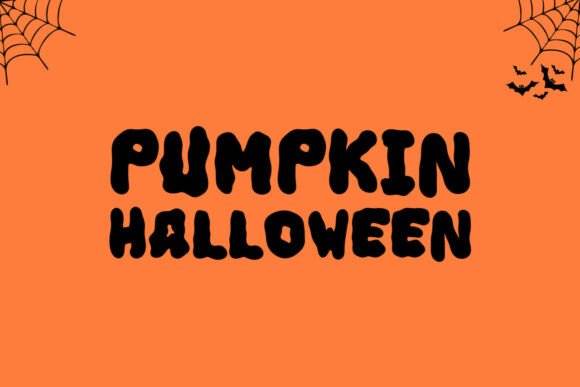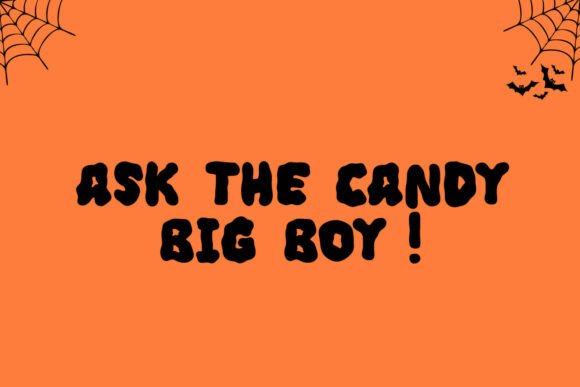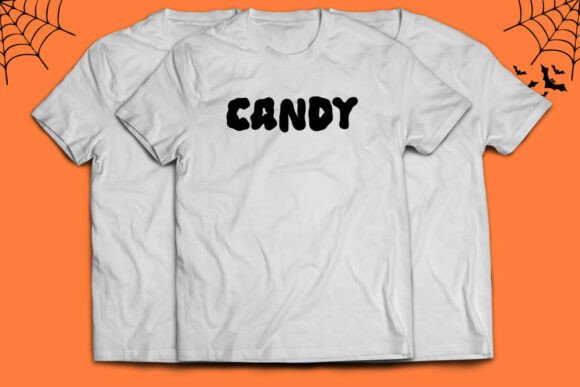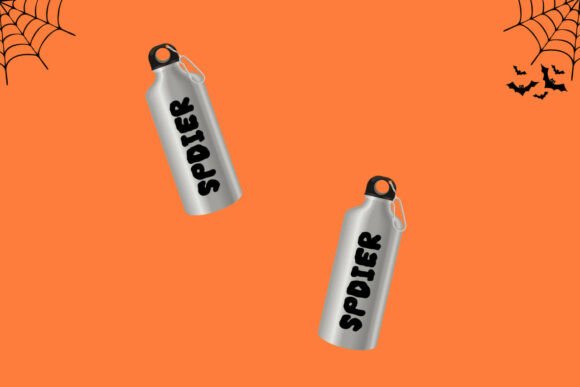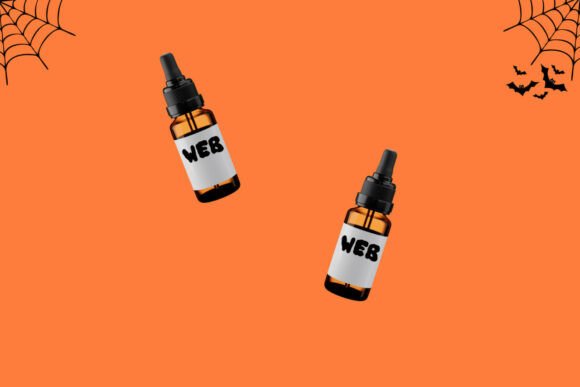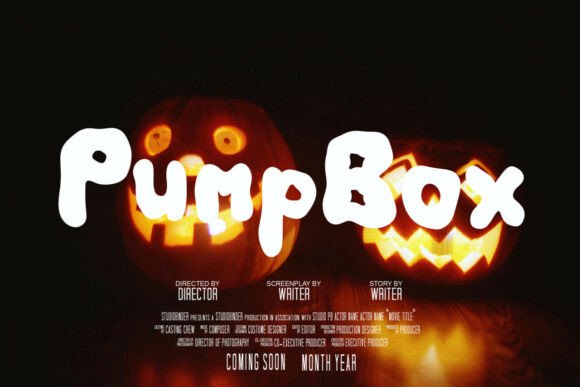
Introduction to Plumpkin Font
As the leaves begin to change and the air grows crisp, many of us start brainstorming creative ways to capture the essence of autumn. Whether you’re designing party invites, stickers, or mugs for a seasonal market, you need a font that embodies the cozy, playful spirit of the season. That’s where Plumpkin Font comes in – a chunky, cheerful display font that’s sure to put a smile on your customers’ faces.
With its bold strokes and rounded shapes, Plumpkin Font is the perfect design resource for any creative project. Its high-quality design makes it ideal for free downloads, and its transparent background ensures that your words will shine on any background. Whether you’re a seasoned designer or just starting out, Plumpkin Font is a valuable addition to your toolkit.
So why settle for a generic font when you can make a statement with Plumpkin Font? Let’s dive in and explore the many ways you can use this delightful font to bring your autumn-themed designs to life.
Key Features of Plumpkin Font
- High-quality font with a transparent background, ideal for creative projects that require a unique and eye-catching design resource.
- Includes a range of characters, including uppercase and lowercase letters, numbers, and punctuation marks, making it a versatile design resource.
- Designed with a modern and playful aesthetic, the Plumpkin Font is perfect for use in logos, branding, and other creative projects.
- Unique characteristics include its rounded shapes and soft lines, giving it a friendly and approachable feel.
Honest Review: Plumpkin Font
I recently had the chance to play around with the Plumpkin Font, and I must say it’s a unique and interesting addition to any design project. This free download is perfect for designers looking to add a personal touch to their work.
- High quality design: The Plumpkin Font is a well-crafted, high-quality design resource that’s perfect for creative projects.
- Transparent background: The font’s transparent background makes it easy to use and blend in with any design element.
- Unique style: The Plumpkin Font’s unique style and design elements make it stand out from more traditional fonts.
- Limited flexibility: The font’s design is quite rigid, making it difficult to use in certain situations.
- Lack of customization options: There are no options to customize the font’s size, color, or style beyond the default settings.
Overall, the Plumpkin Font is a solid design resource that’s perfect for designers looking for a unique and high-quality font. While it may have some limitations, it’s a great addition to any design project, especially creative projects that require a personal touch.
Tips for Getting the Most Out of Plumpkin Font
Use the Plumpkin Font on a transparent background to create a unique and eye-catching design. Experiment with different font sizes and colors to add depth and visual interest to your creative project.
The Plumpkin Font is ideal for use in creative projects such as posters, flyers, and social media graphics. It’s also great for use in presentations and documents where a unique and eye-catching font is needed.